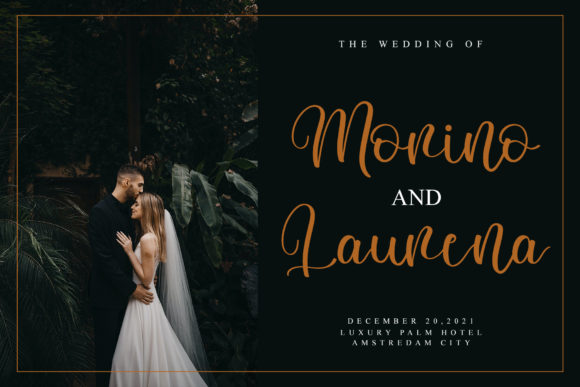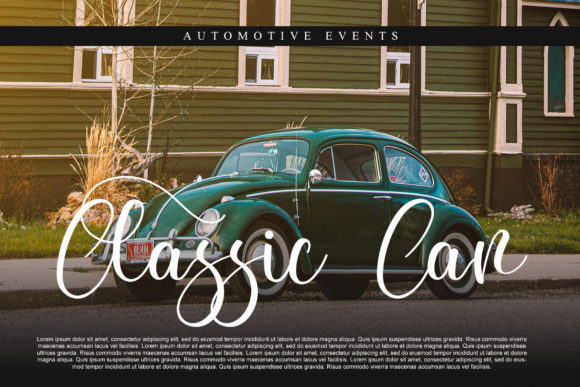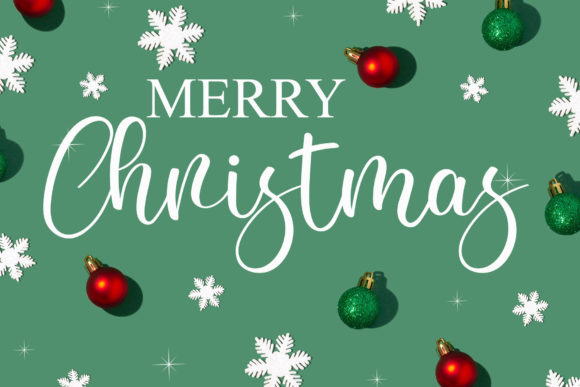
Introduction to Little Santa Font
Little Santa is a lovely handwritten font that is designed with heart.
This font offers a luxurious style to any design project you are looking to create Add it confidently to your designs, and you will love the results.
Key Features of Little Santa Font
Why Choose Little Santa Font?
Little Santa Font offers exceptional quality and versatility, making it a valuable addition to your design toolkit. Whether you’re creating for personal projects or commercial use, Little Santa Font delivers professional results.